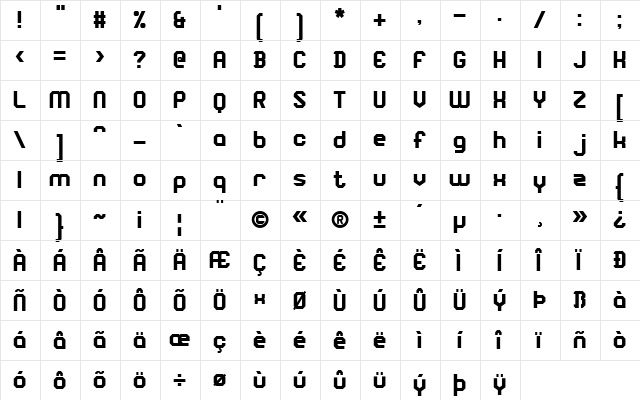
Square Block Regular
Design Context for Square Block Typeface
Square Block is a composed and adaptable typeface that performs quietly and consistently across a wide range of design contexts.